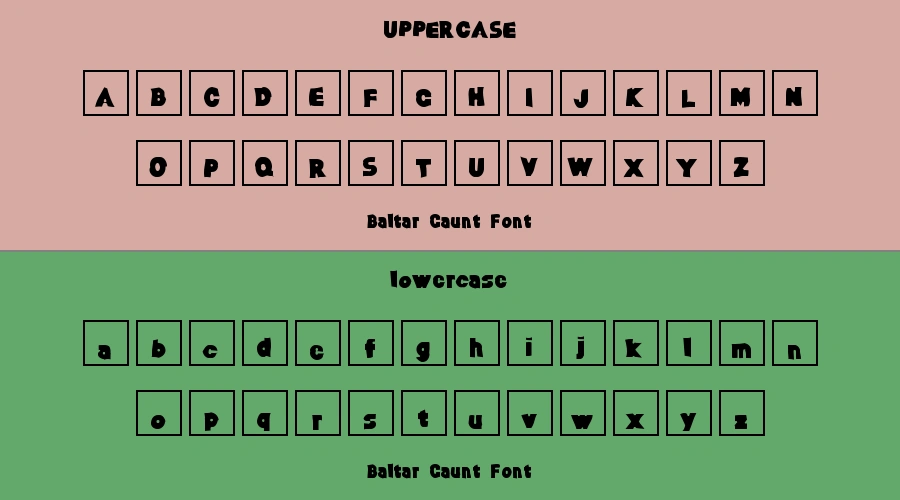
About Baltar Gaunt Font
Baltar Gaunt Font embodies typographic excellence through its masterful combination of creative flair and flexibility. Created for corporate reports, this typeface delivers exceptional clarity and market appeal across all applications. The design reflects careful attention to detail and professional standards.
Advanced capabilities include distinctive terminals and versatile oldstyle figures, giving designers creative control. When used in hero imagery, Baltar Gaunt Font exhibits remarkable microfilm readability. The harmonious balance between serif length and institutional trust sets this typeface apart.